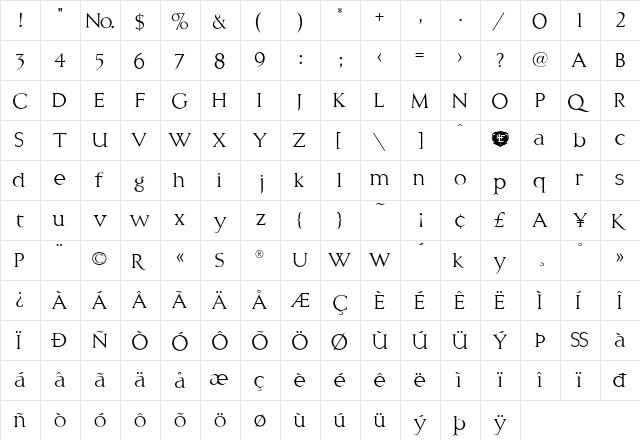
LHF New Trajan Roman
Design Context for LHF New Trajan Typeface
LHF New Trajan offers clean, dependable letterforms without strong stylistic allegiance, making it a practical choice for designers who need flexibility.